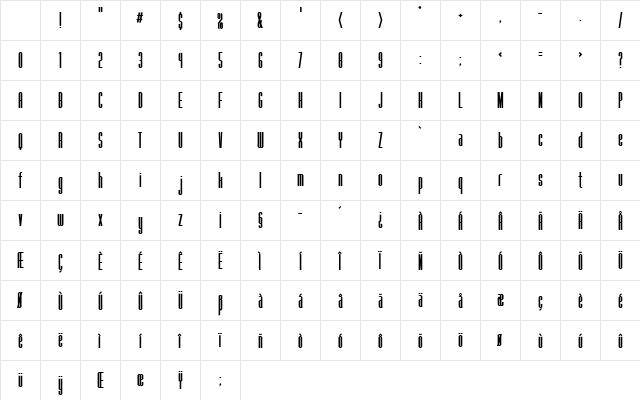
Fanatique is a composed and adaptable typeface that performs quietly and consistently across a wide range of design contexts. Its bold stroke weight gives it real presence on the page.